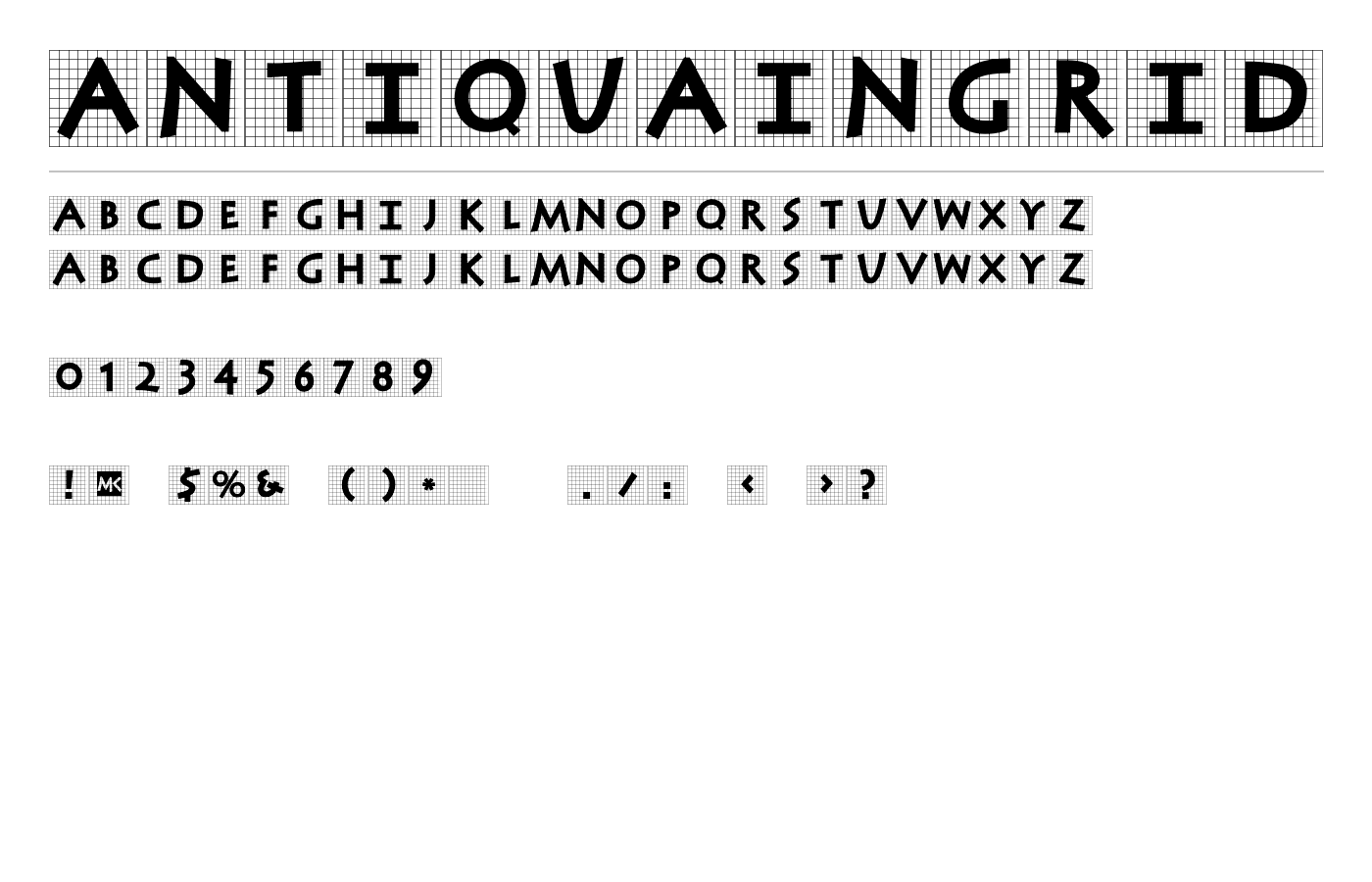
AntiquaInGrid is a bold, sans serif font with a playful and slightly irregular geometric style, characterized by its blocky letterforms and high contrast in stroke thickness. Its all-caps design and distinctive quirky shapes give it a modern, energetic feel that works well for branding, headlines, and creative projects seeking a unique, eye-catching look. This font is ideal for logos, posters, and packaging where a strong, confident personality is desired.
AntiquaInGrid Font
About AntiquaInGrid Font